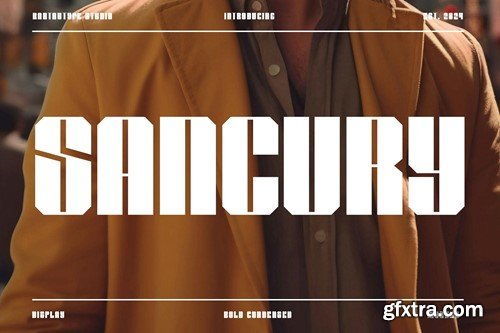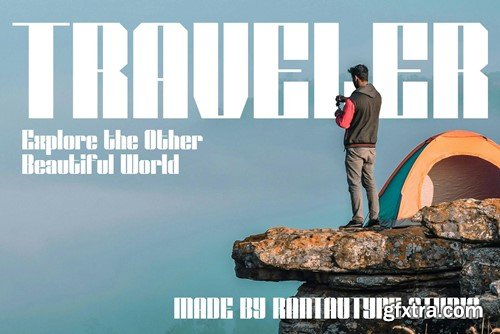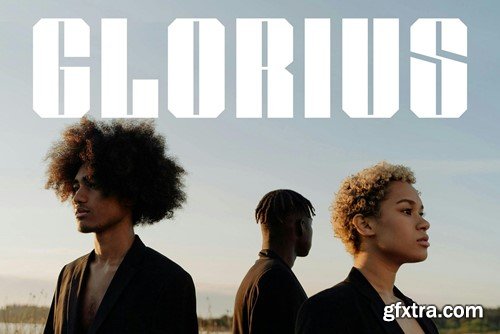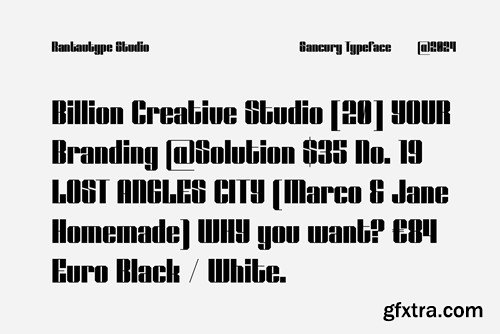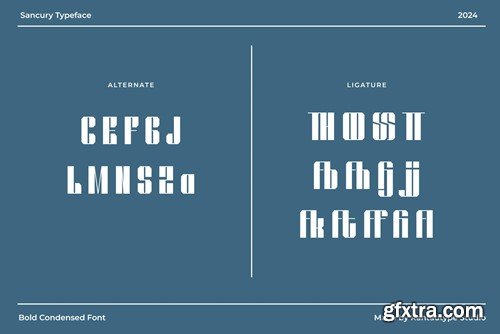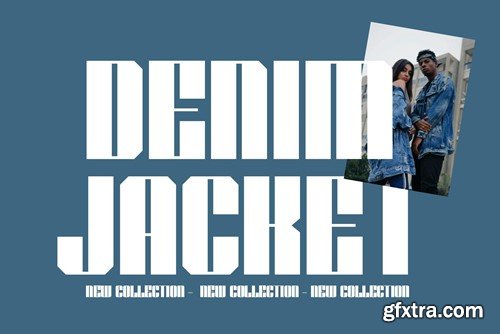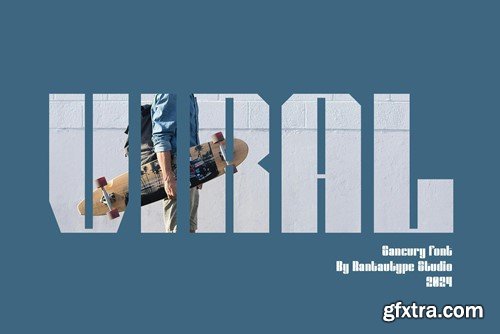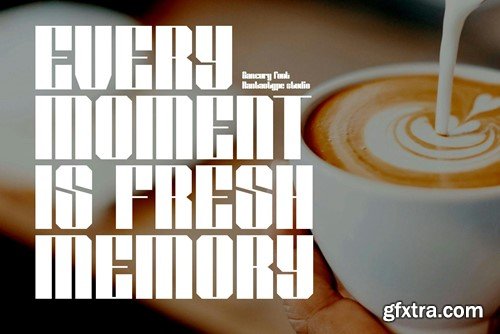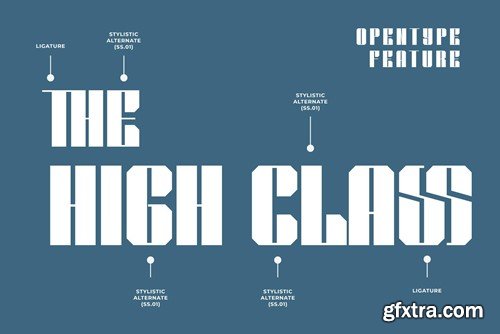
SanCury Modern Bold Font Z999J4N
Sancury is bold sans serif typeface with modern design style. We make this font look tightly, clean and minimal white space to appear modern. Sancury come with alternate, ligature and support multilangual character to support you design project. Sancury is a perfectly choice for any creative endeavor, chic, lifestyle design such as logos, advertisements, watermark on photography, stationery, branding project, display and magazine, invitation, corporate brand, product design, label, business project and many other project wiht bold taste. What you have: Fonts include Multilingual Character for: Afrikaans, Albanian, Asu, Basque, Bemba, Bena, Breton, Chiga, Cornish, Dutch, English, Estonian, Filipino, Finnish, Friulian, Galician, Gusii, Indonesian, Irish, Italian, Kabuverdianu, Kalenjin, Kinyarwanda, Luo, Luxembourgish, Luyia, Machame, Makhuwa-Meetto, Makonde, Malagasy, Manx, Morisyen, North, Ndebele, Nyankole, Oromo, Portuguese, Quechua, Romansh, Rombo, Rundi, Rwa, Samburu, Sango, Sangu, Scottish, Gaelic, Sena, Shambala, Shona, Soga, Somali, Spanish, Swahili, Swedish, Swiss, German. Thank you for your purchase! Hope you enjoy with our font!